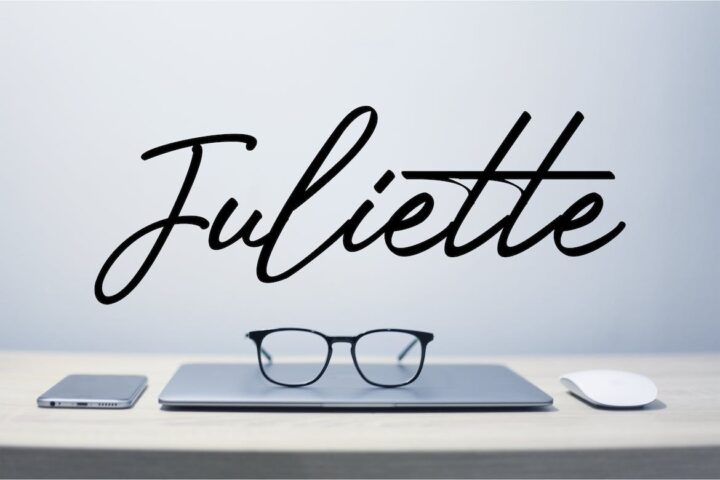
Juliette Font
Introducing our new product Juliette Font – Modern Font
Juliette Font – Modern Font is a bold and authentic display font. The font is suitable for any branding project like logo, t-shirt printing, esport, and many more. outstanding in a wide range of contexts.